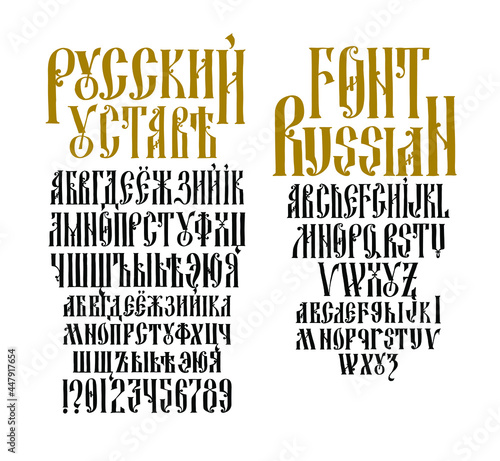
Old Russian font alphabet. Vector. The inscription is in Russian and English. Neo-Russian style of the 17-19th century. All letters are handwritten, at random. Stylized under the Greek or Byzantine